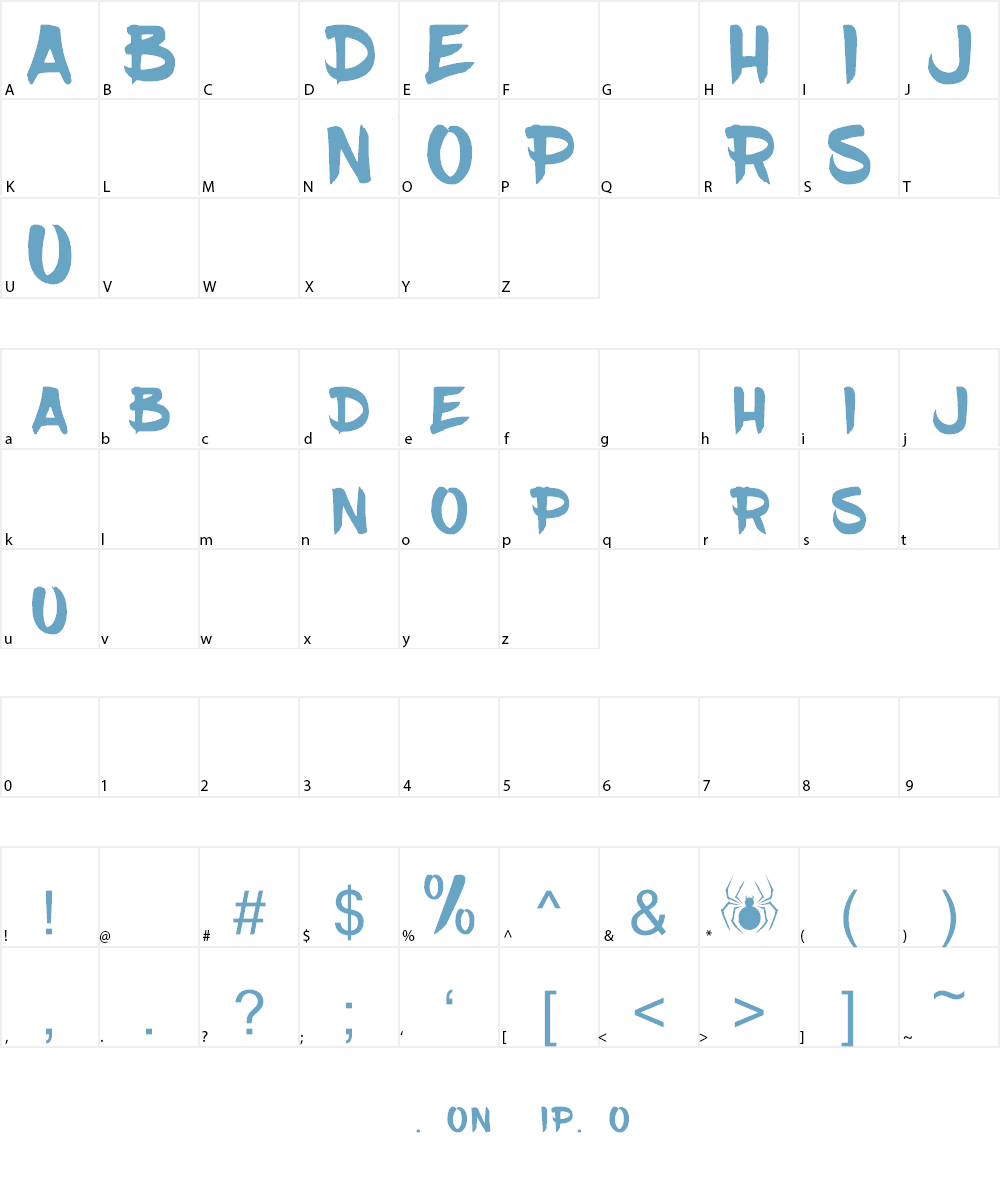
Always wanted to create a font based on the the brush strokes of the humble paint brush as I started to create this it started to look oriental, the name is a play upon words kinda like a martial art of painting BRUSHIDO a font of honour and ideals that dictated the samurai way of life.